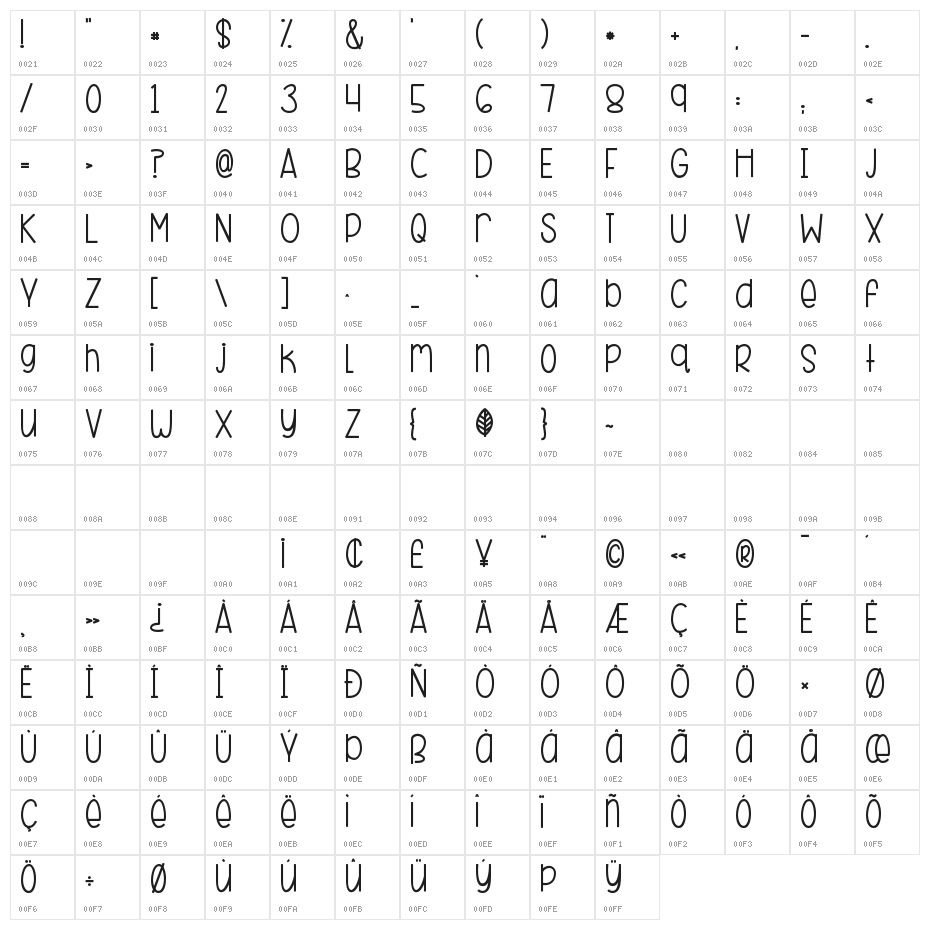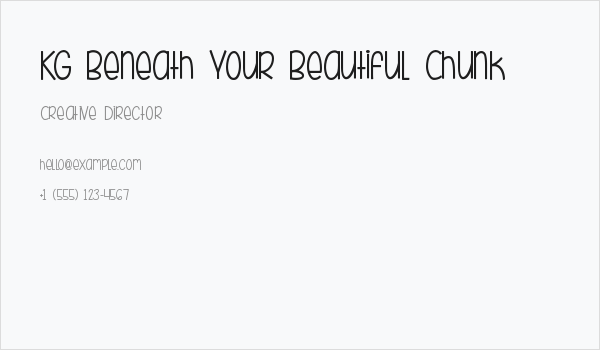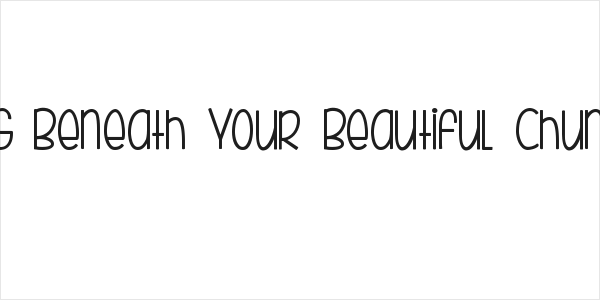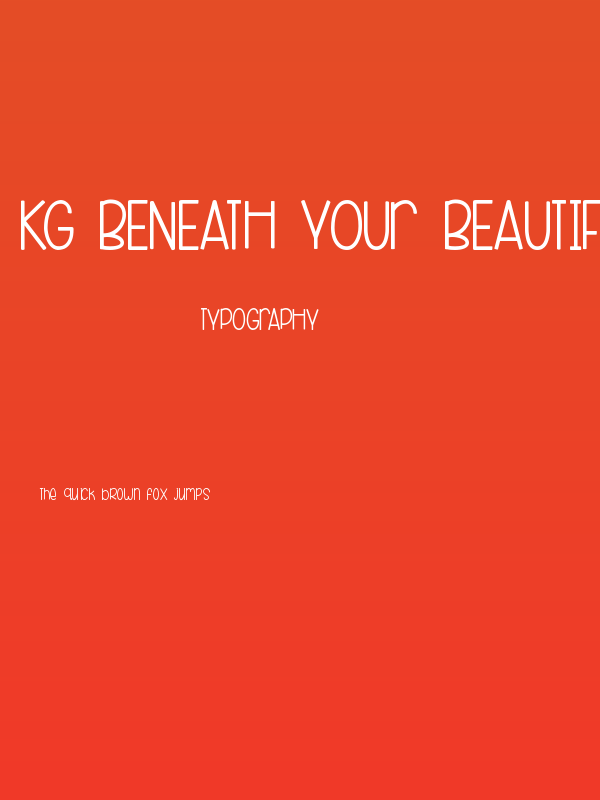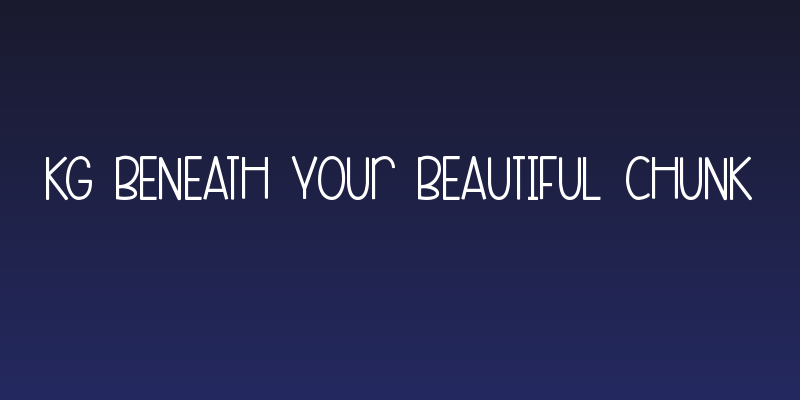
KG Beneath Your Beautiful Chunk Font
KG Beneath Your Beautiful Chunk Description
This font features a playful and rounded style, characterized by its smooth curves and uniform stroke width. The letters are tall and narrow, giving it a condensed appearance while maintaining readability. The uppercase and lowercase letters share a consistent design, with a slight whimsical touch that adds charm. The numerals are clear and align well with the overall style, making them easily distinguishable. Special characters are thoughtfully designed, complementing the alphabet with a cohesive look. This font's simplicity and friendliness make it versatile for various design projects.
| Proposed Projects | Ideal for children's books, playful branding, greeting cards, and educational materials. |